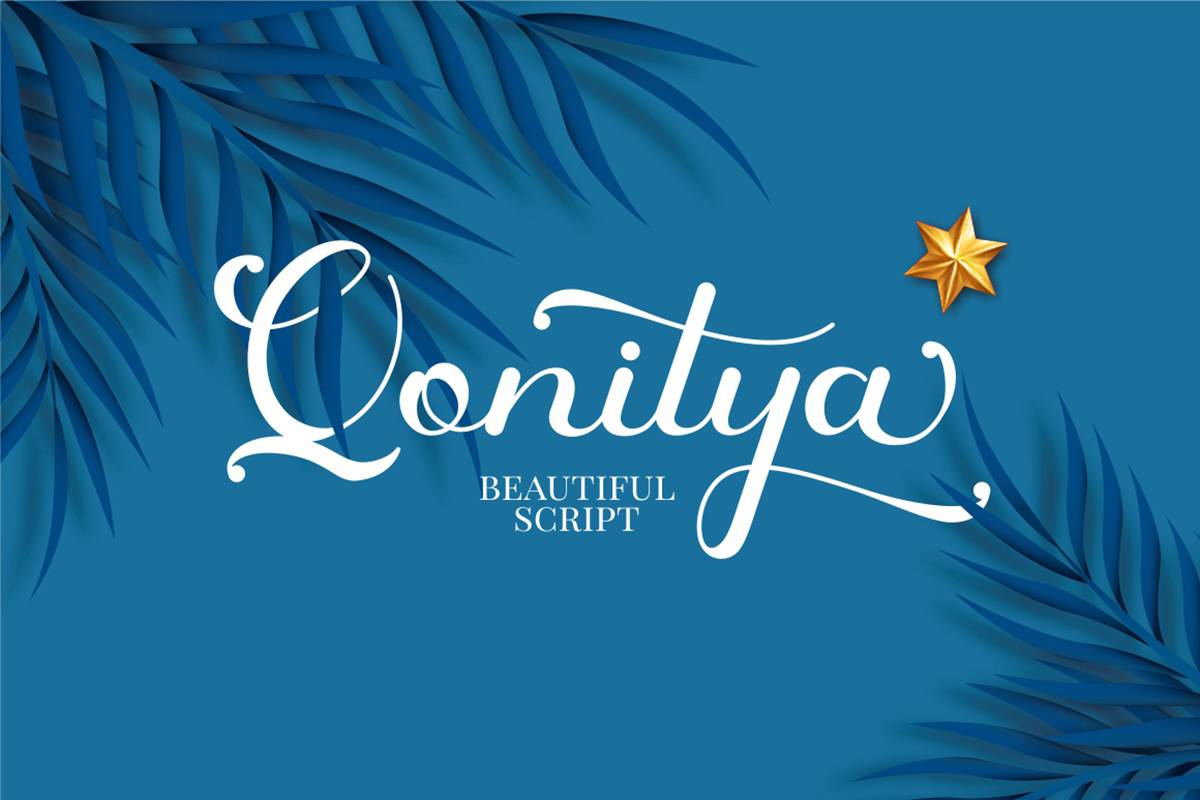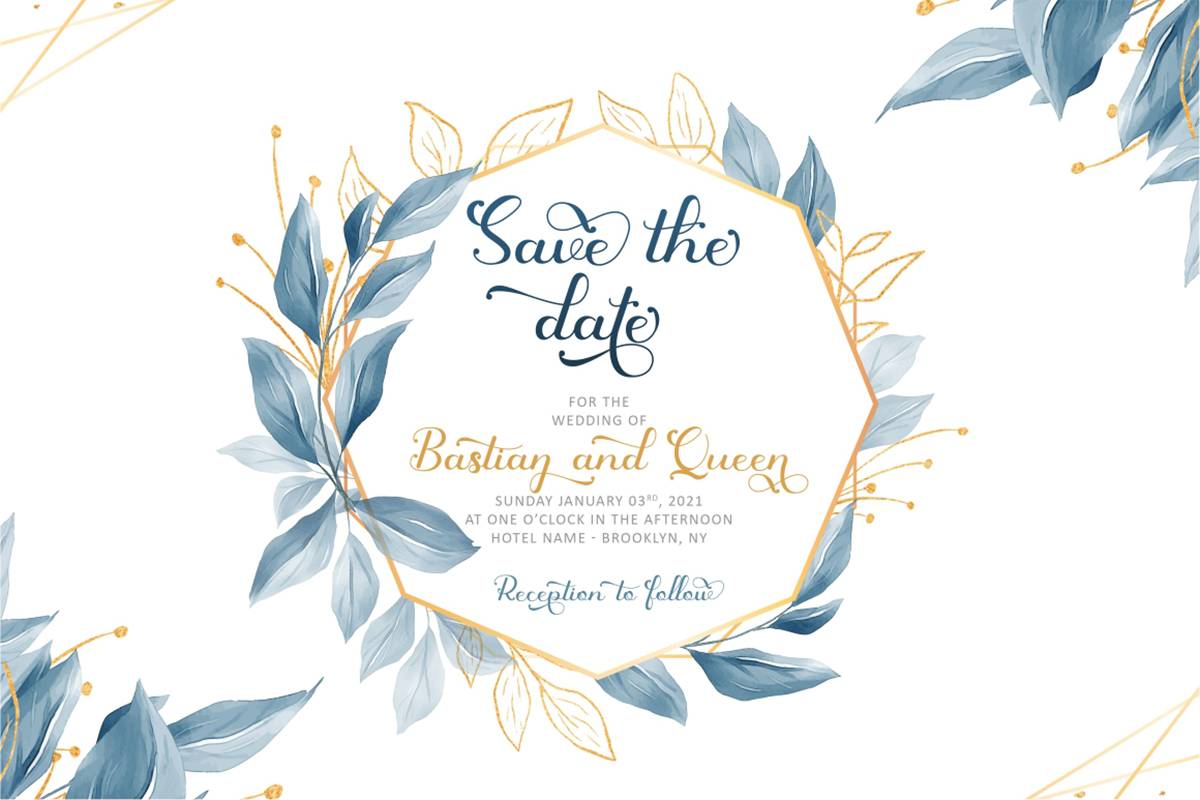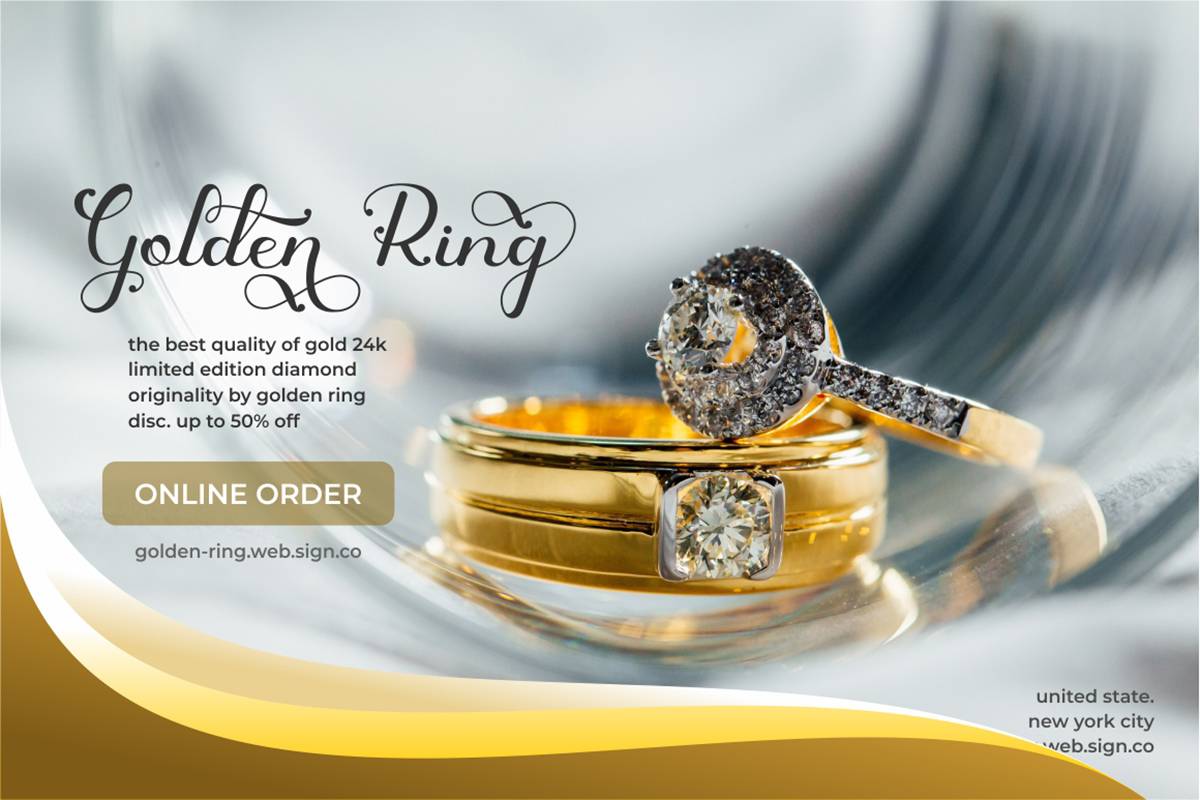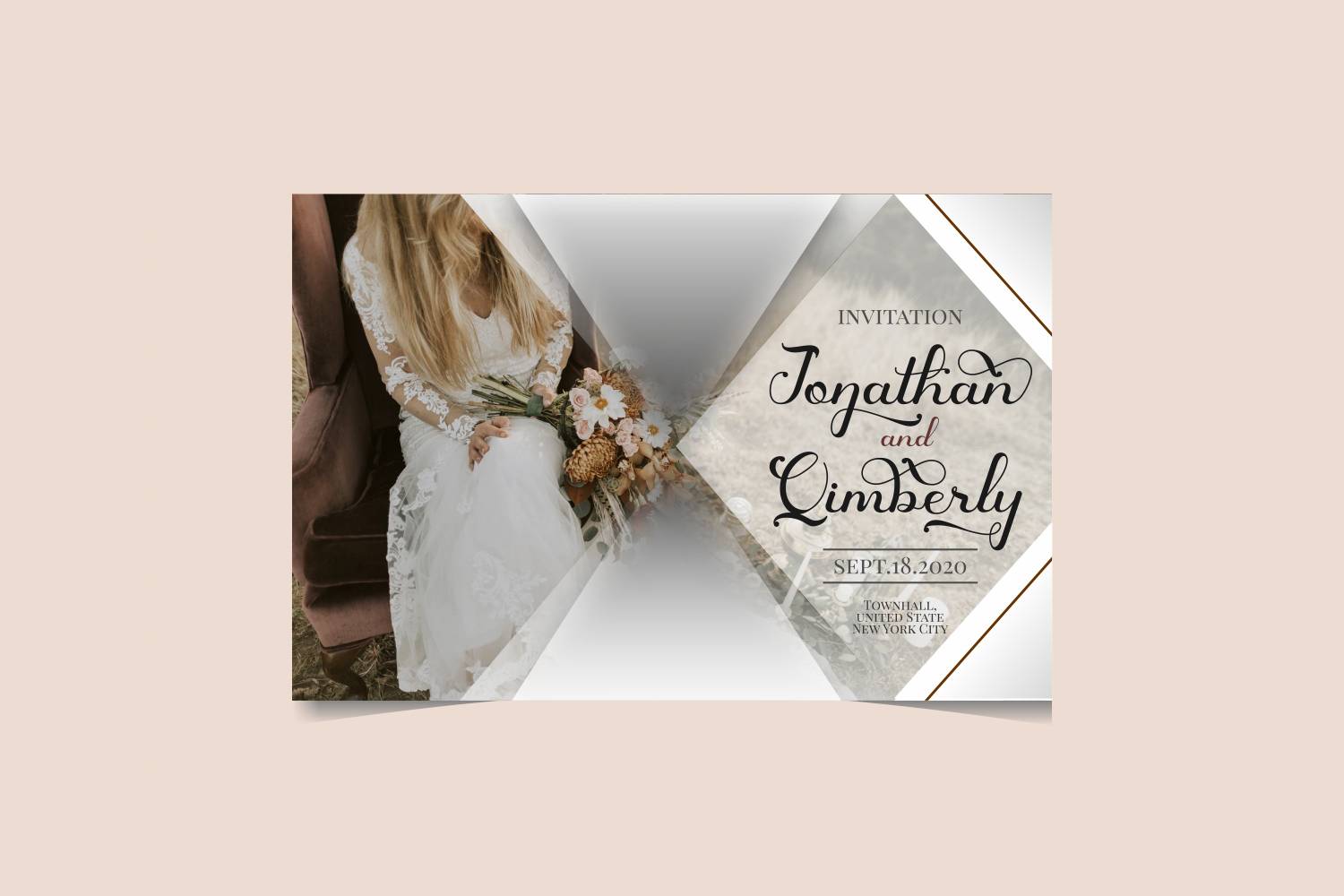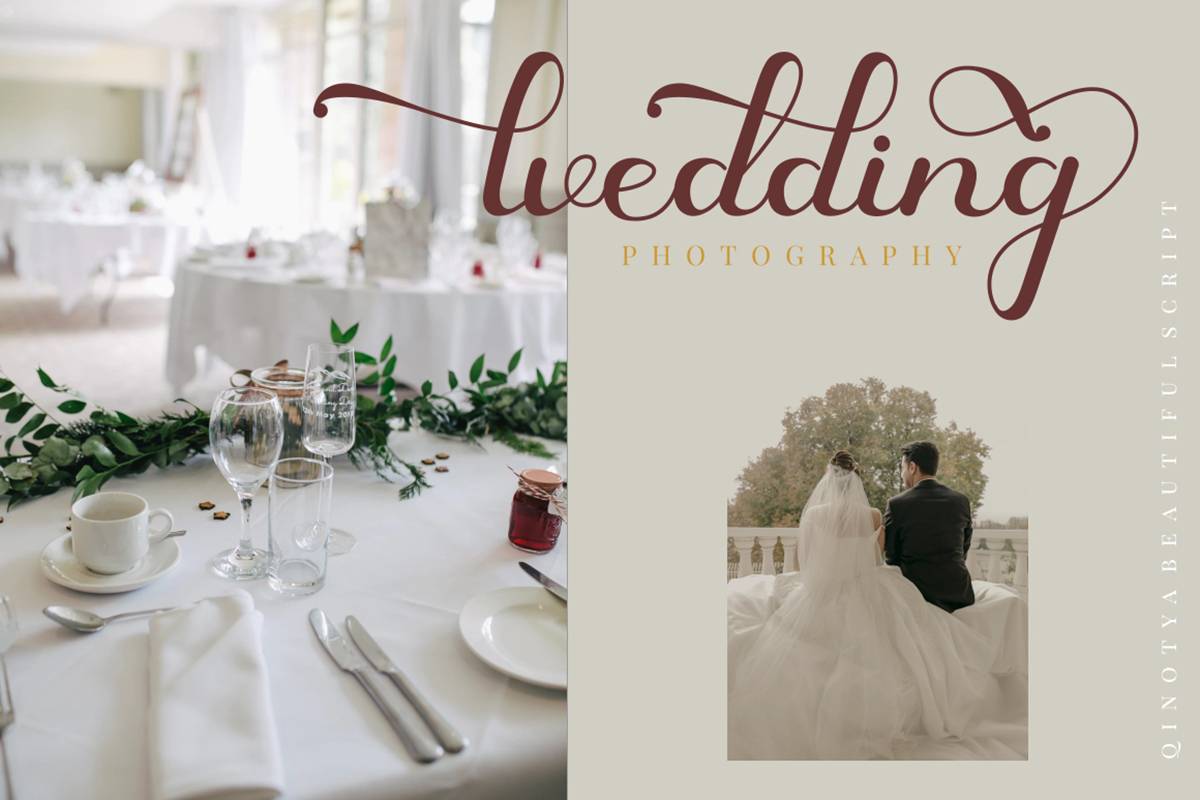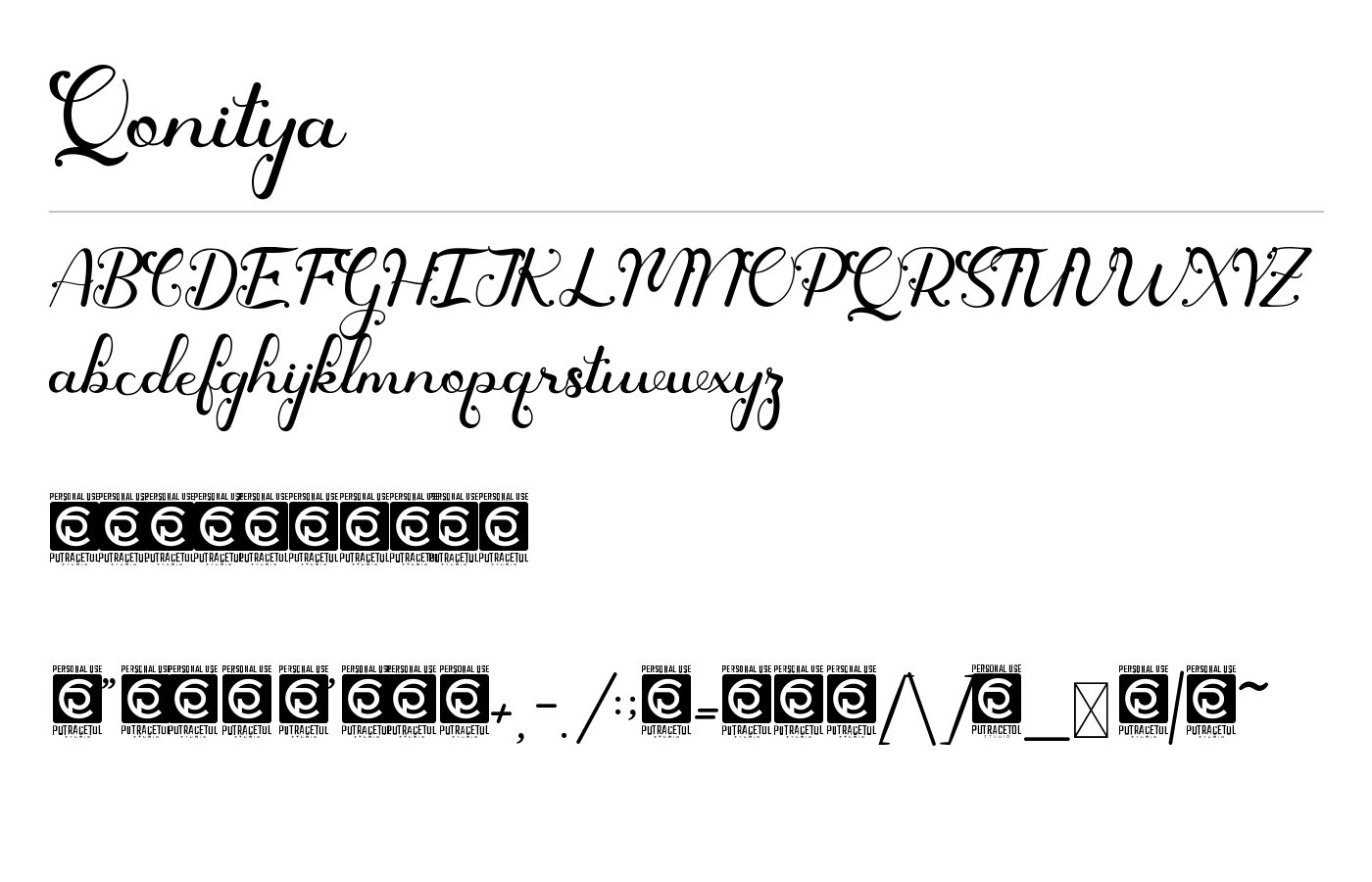
Qonitya is an elegant script font featuring delicate, flowing letterforms with graceful swashes and curls that give it a sophisticated and romantic feel. Its slender strokes and decorative flourishes make it ideal for stylish invitations, branding, and headings where a refined, artistic touch is desired. This font works beautifully in fashion, luxury, and creative projects looking to convey elegance and personal flair.
Qonitya Font
About Qonitya Font
| Font family | Qonitya Font |